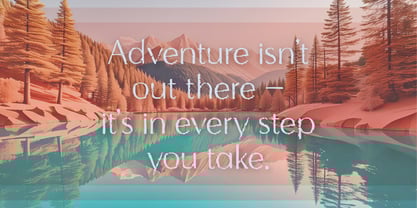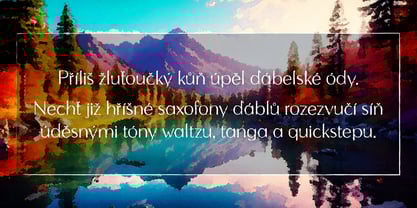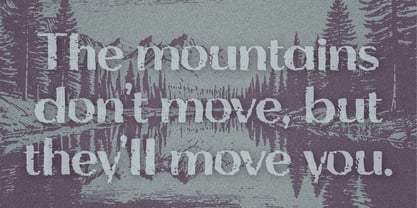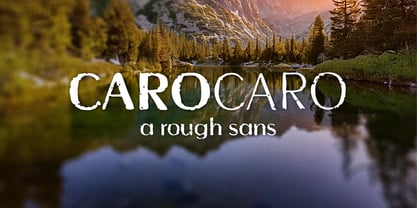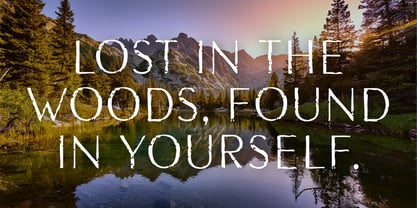
Carocaro
by Dominik Krotscheck
Expressive, rough-looking display typeface with a handcrafted character.
Carocaro is a powerful display typeface that embodies a raw, handcrafted aesthetic with its irregular, organic shapes. Its unique, slightly distressed letters give every design a distinctive touch — perfect for branding, posters, music covers, games, and atmospheric editorial projects.
With its irregular edges and textured fill, it feels hand-drawn while maintaining excellent readability. Carocaro is ideal for designers looking for a blend of vintage vibes, grunge, and modern individuality.
Features:
✔ Irregular, organic shapes with textured edges
✔ Strong visual presence for headlines, logos & posters
✔ Perfect for vintage, horror, punk, and rock designs